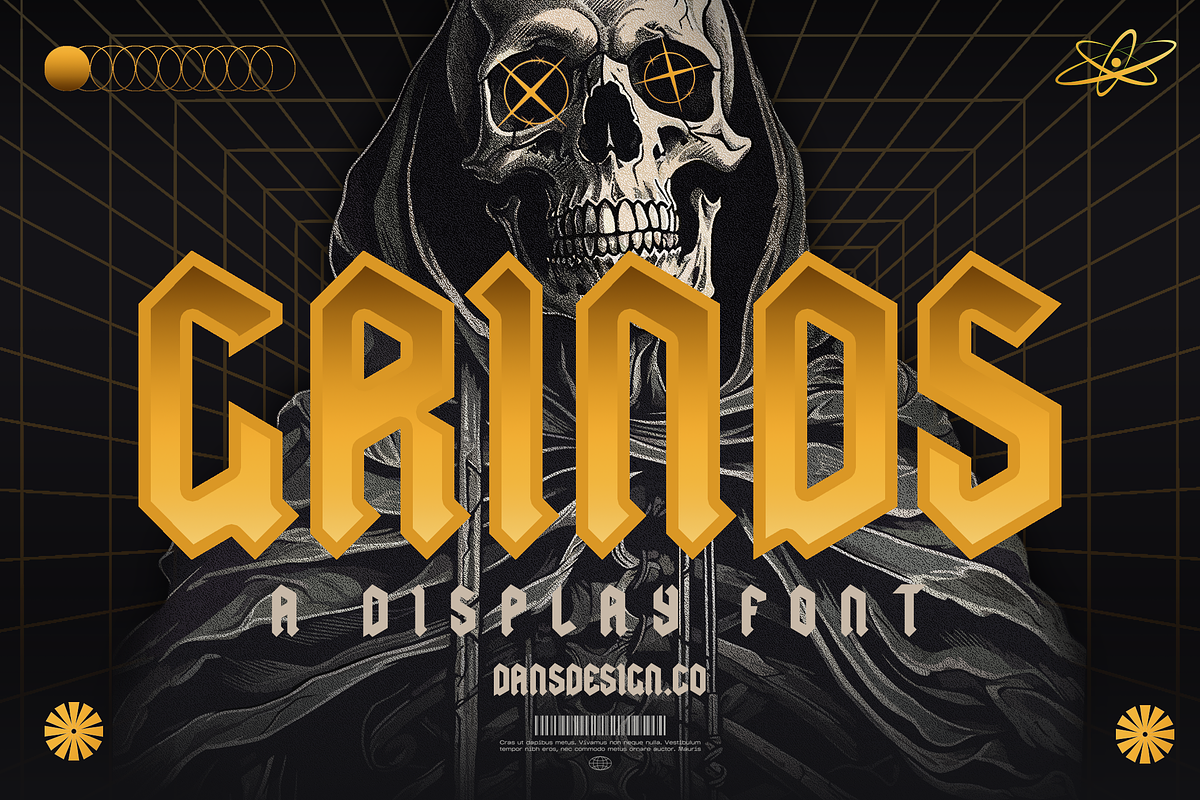
GRIND MODERN BLACKLETTER METAL FONT Free Download
GRIND MODERN BLACKLETTER METAL FONT Free Download is a bold, edgy typeface that combines the strength of traditional blackletter design with the intense energy of metal culture. Perfect for album covers, band logos, posters, and any design project that needs a powerful, rebellious look, this font brings a raw and striking aesthetic to your work.
With sharp, angular strokes and dramatic details, GRIND is ideal for creating designs with a high-impact, rock-and-roll vibe. It includes uppercase and lowercase letters, punctuation, multilingual support, and works smoothly across both Mac and Windows systems.